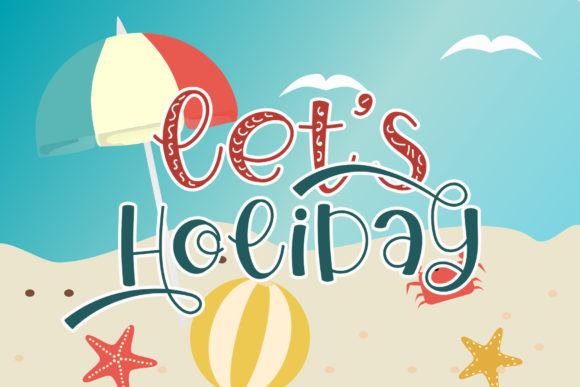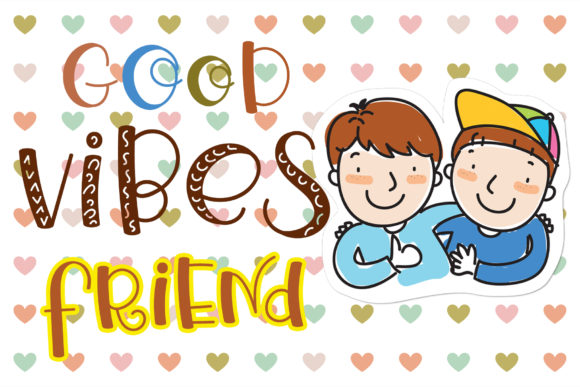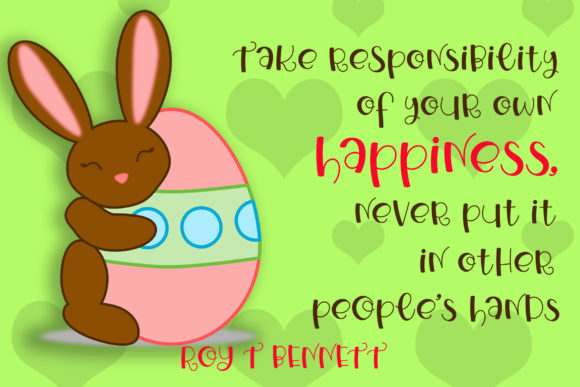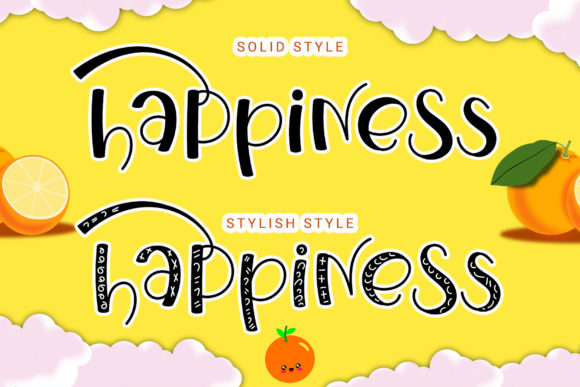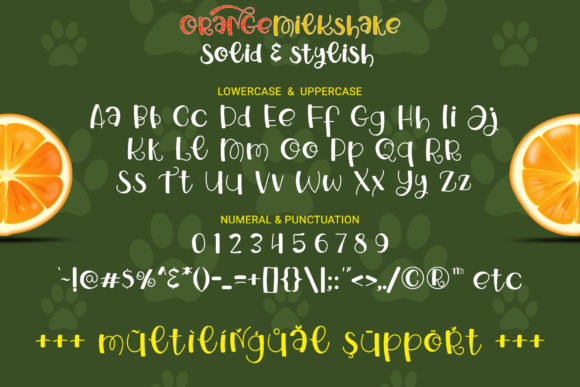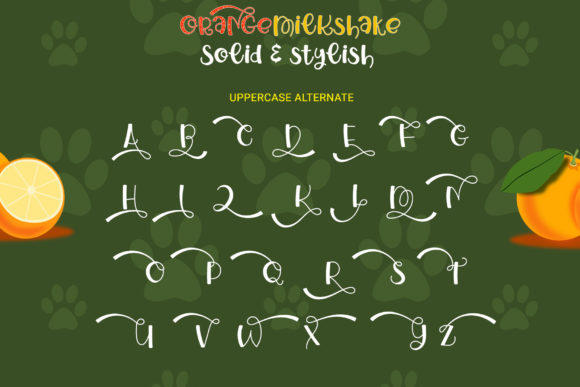
Introduction to Orange Milkshake Font
Have you ever stumbled upon a font that perfectly captures the essence of your creative vision? For many designers, that moment is like finding a treasure trove of inspiration. And for those who have been searching for the perfect script font, the Orange Milkshake Font is a game-changer. With its bold, yet sophisticated design, this masterfully crafted font is sure to elevate any design project.
Whether you’re working on a branding campaign, packaging design, or any other creative project, the Orange Milkshake Font is an invaluable resource. Its chunky and extended characters make it particularly adept for use in logos, titles, and other visual elements. Plus, with a transparent background, you can easily customize it to fit your design needs.
Key Features of Orange Milkshake Font
- High-quality design resource with a unique, hand-drawn style, perfect for creative projects
- Features a transparent background, allowing for easy customization and layering
- Comes in 5 different font styles, including Regular, Bold, Italic, Bold Italic, and Outline, for added versatility
- Designed with a resolution of 300 DPI, ensuring crisp and clear text rendering
- Perfect for use in a variety of creative projects, from logos and branding to digital art and typography
Honest Review: Orange Milkshake Font
As a designer, I’m always on the lookout for unique and high-quality fonts to enhance my creative projects. The Orange Milkshake Font caught my eye, and I decided to give it a try.
What works well: ✨ The Orange Milkshake Font has a fun and playful vibe, making it perfect for projects that require a bit of whimsy. The font is available for free download, which is a major plus in my book. The high-quality design ensures that the font looks great on any background, and the transparent background makes it easy to use on any project.
- The font is highly customizable, allowing you to adjust the size, color, and spacing to fit your design needs.
- The Orange Milkshake Font is perfect for designers who want to add a touch of personality to their projects.
Overall impression: The Orange Milkshake Font is a fun and creative addition to any design project. Its playful vibe and high-quality design make it a great choice for designers who want to add a bit of personality to their work. While it may have some limitations, it’s a great resource for designers who are looking for a unique and free font download.
Tips for Getting the Most Out of Orange Milkshake Font
Some tips for getting the most out of Orange Milkshake Font include experimenting with different font sizes and styles, combining it with other design elements, and using it in creative and innovative ways. With its high-quality design and transparent background, the possibilities are endless.